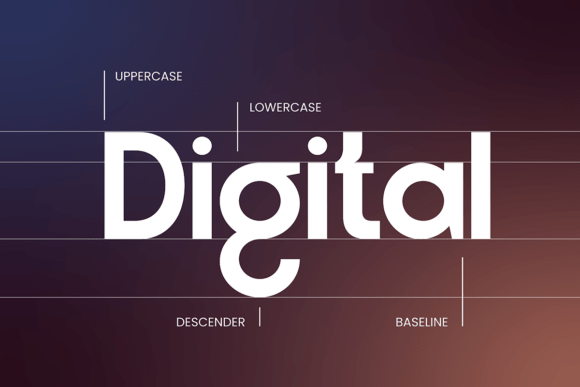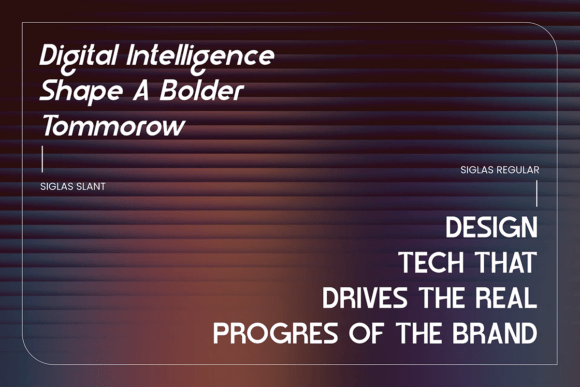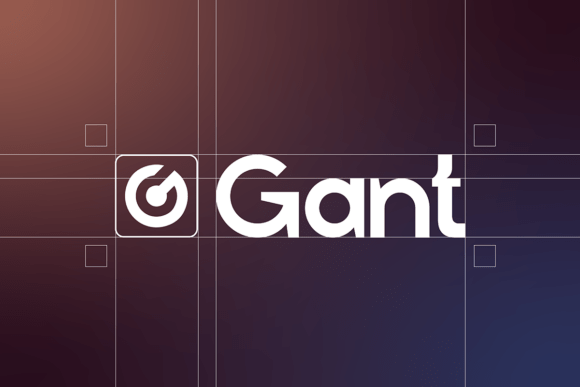
Introduction to Siglas Font
Siglas is a modern sans serif font designed with clean geometry, balanced proportions, and a sleek contemporary feel.
Its smooth curves and precise structure create a professional and forward-thinking look, making it ideal for modern branding, digital products, technology visuals, websites, UI design, and creative presentations This typeface comes with 2 styles: Regular and Slant, offering flexibility for both clean layouts and dynamic compositions.
Key Features of Siglas Font
Why Choose Siglas Font?
Siglas Font offers exceptional quality and versatility, making it a valuable addition to your design toolkit. Whether you’re creating for personal projects or commercial use, Siglas Font delivers professional results.